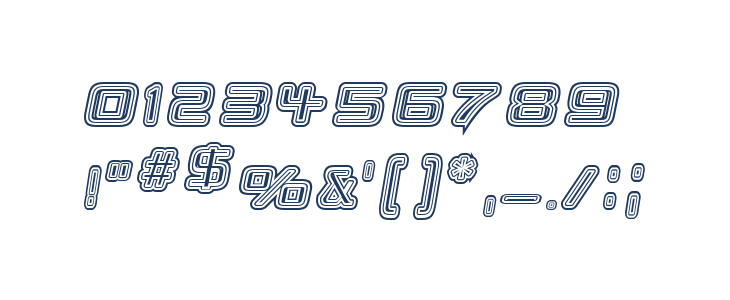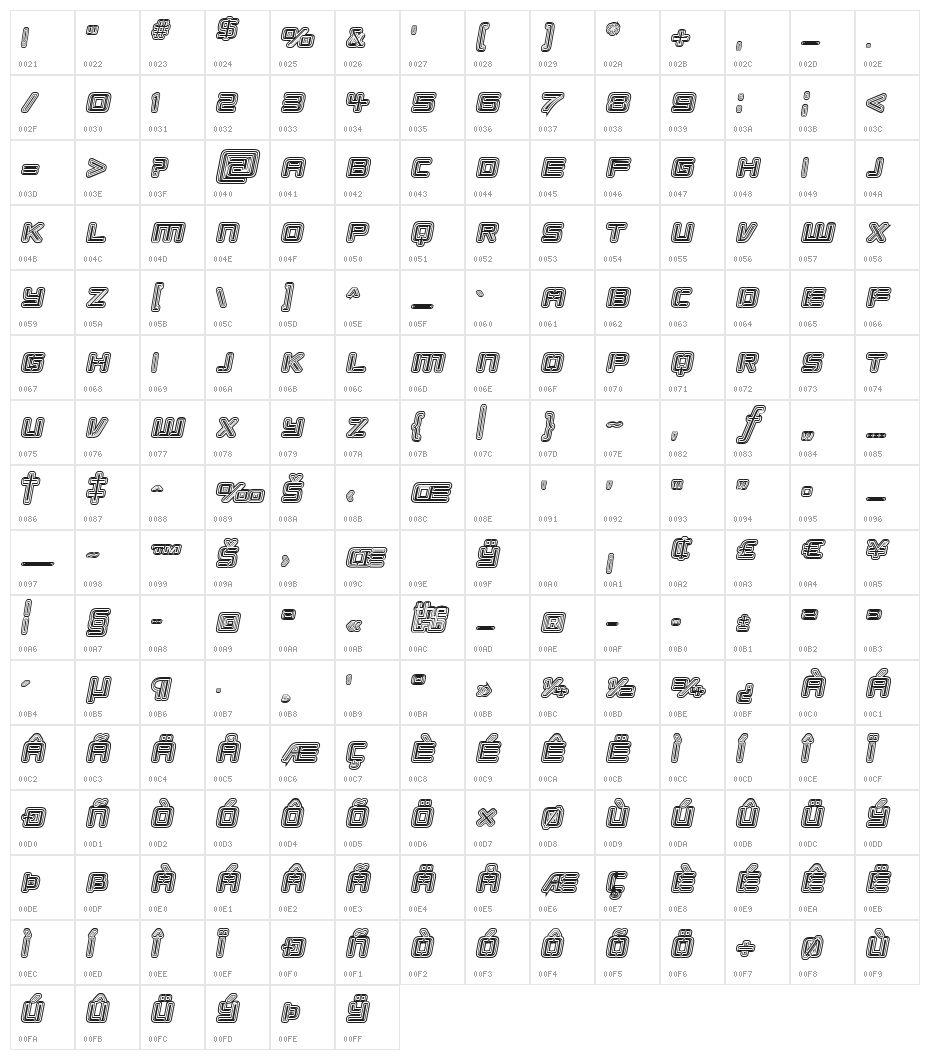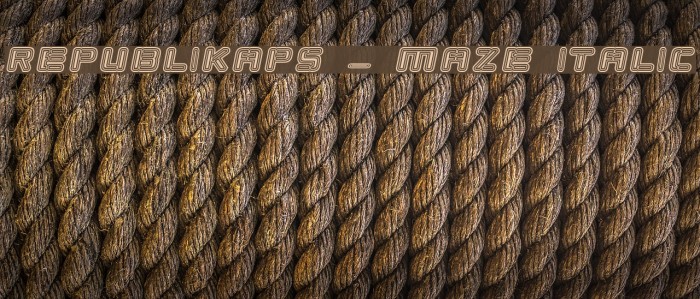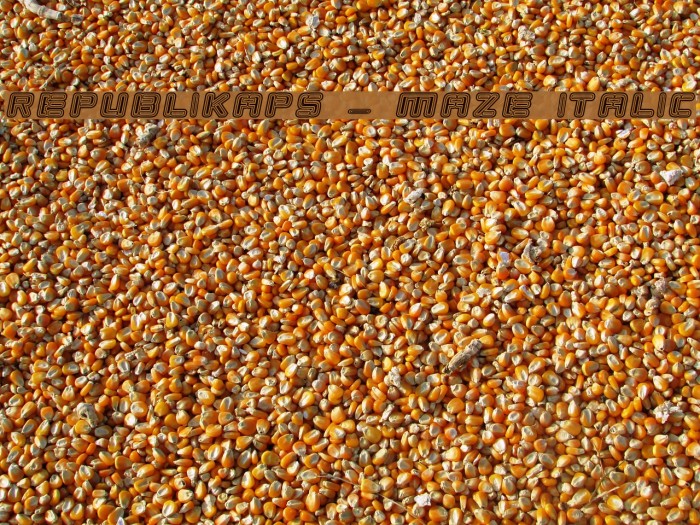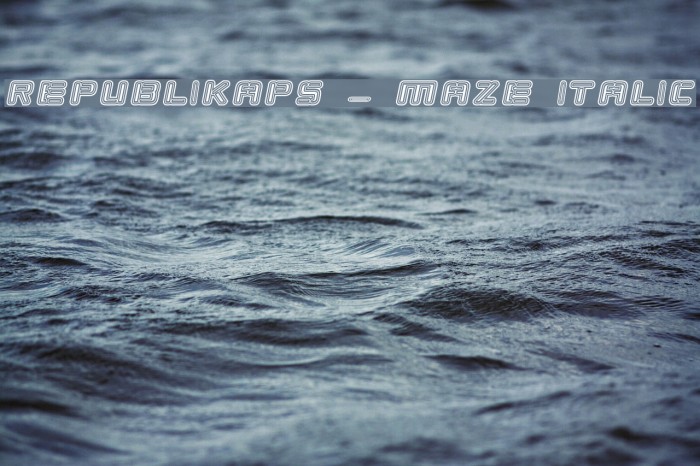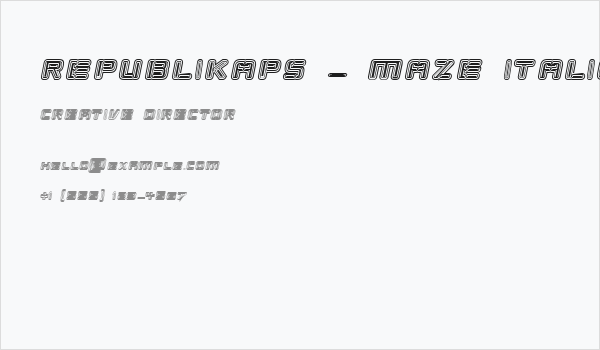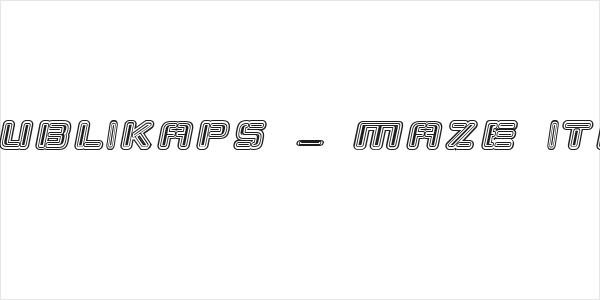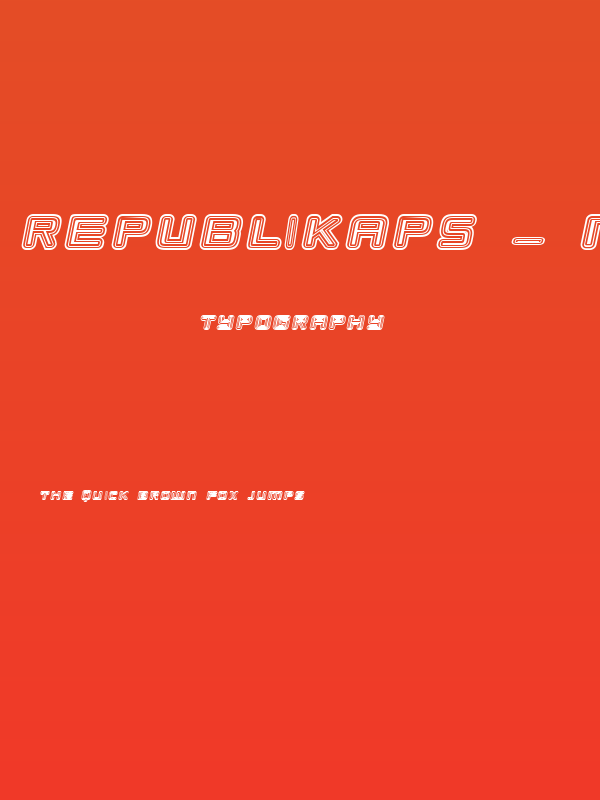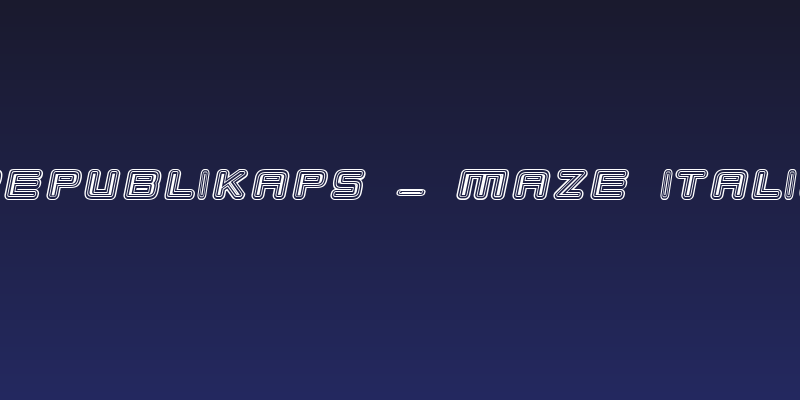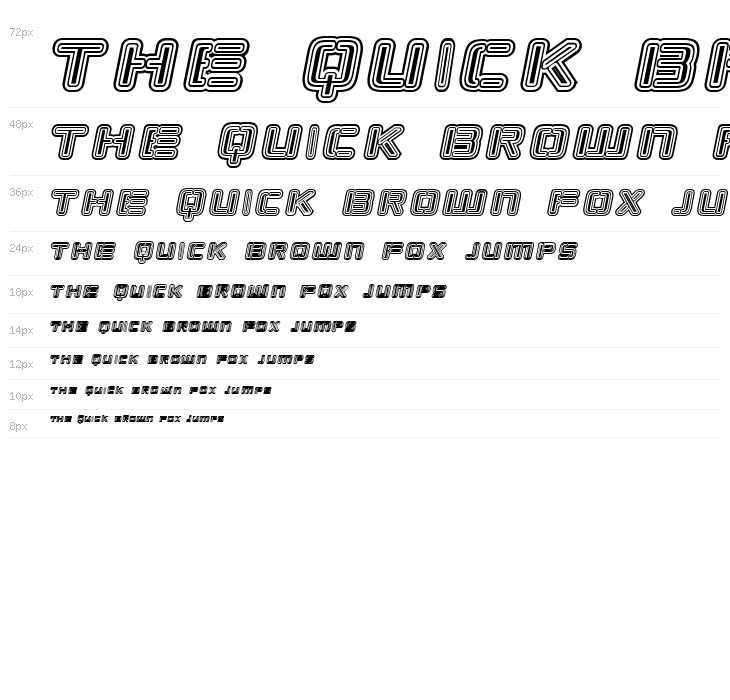
Republikaps - Maze Italic Font
Republikaps - Maze Italic Description
This font features a unique, maze-like design with a three-dimensional effect created by its layered outline structure. The characters are bold and have a playful, decorative style that stands out with its intricate patterns. Each letter and number is crafted with precision, maintaining a consistent width and spacing that enhances readability despite its complex appearance. The italic slant adds a dynamic feel, making it suitable for creative and modern projects. The special characters are equally detailed, complementing the overall aesthetic of the font.
| Proposed Projects | Ideal for eye-catching posters, creative branding, unique logos, and modern digital artwork. |